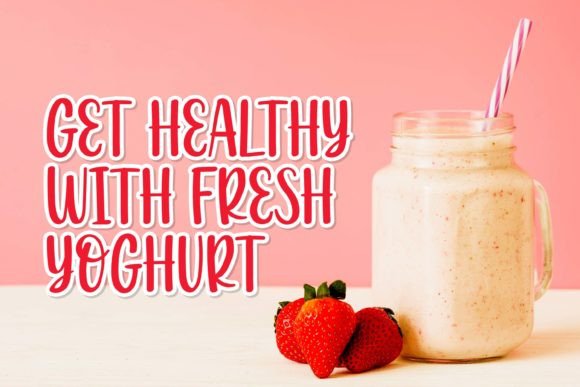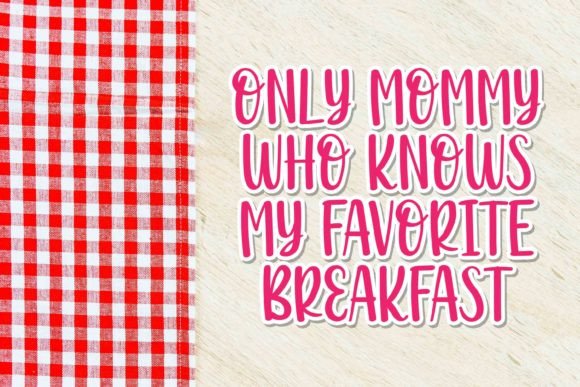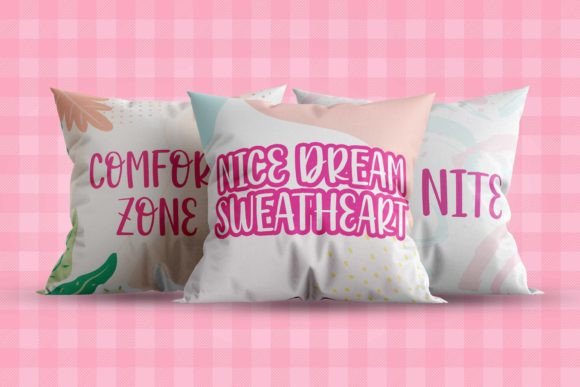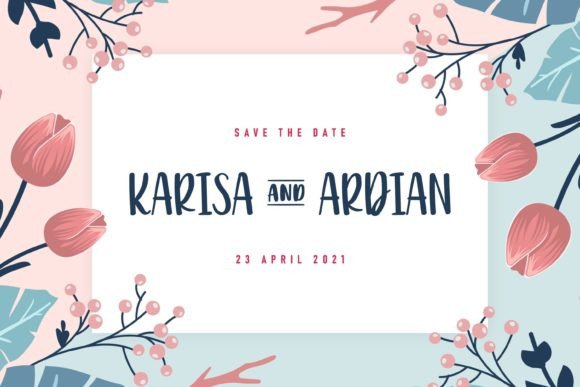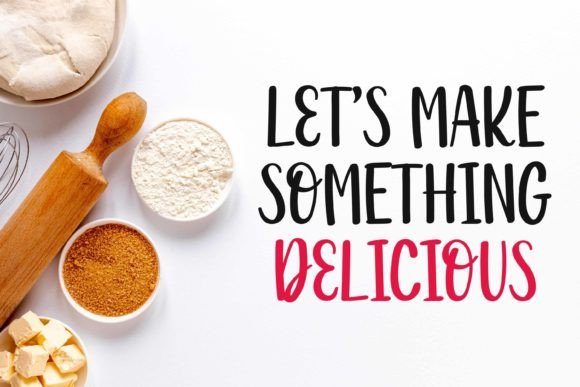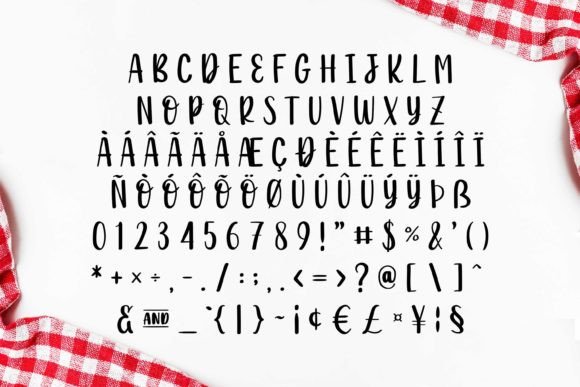
The Quest for the Perfect Font: How Breadlovers Stole My Heart
I’ll never forget the frustration of working on a crafting project, pouring my heart and soul into it, only to be held back by a font that just didn’t feel right. The client wanted something quirky, yet natural; playful, yet professional. Sound familiar? That’s when I stumbled upon Breadlovers, a handwritten all-caps font that has since become my go-to for all things crafty and DIY.
A First Impression: What I Love About Breadlovers
So, what makes Breadlovers so special? Here are a few things that immediately won me over:
- ✨ A natural, handwritten feel that’s perfect for crafting and DIY projects
- ✅ Quirky and playful, yet surprisingly versatile
- 💡 Excellent for headlines, titles, and short bursts of text
- 🎨 A unique character that adds a touch of personality to any design
The Honest Review: A Few Quirks to Consider
No font is perfect, and Breadlovers is no exception. Here are a few things to keep in mind:
- 🤔 As an all-caps font, it may not be the best choice for body text or longer paragraphs
- ⚠️ Some users may find the quirky style too playful for certain projects
The Story Behind Breadlovers: A Designer’s Inspiration
While the true story behind Breadlovers may be lost to the ages, it’s easy to imagine a designer pouring their heart and soul into creating a font that captures the essence of handmade crafts and DIY projects. Perhaps they drew inspiration from vintage signs, hand-painted murals, or the imperfect charm of handwritten letters.
| What type of projects is Breadlovers best suited for? | Breadlovers is perfect for crafting, DIY, and creative projects, such as poster design, print ads, digital ads, headlines, t-shirts, and more. |